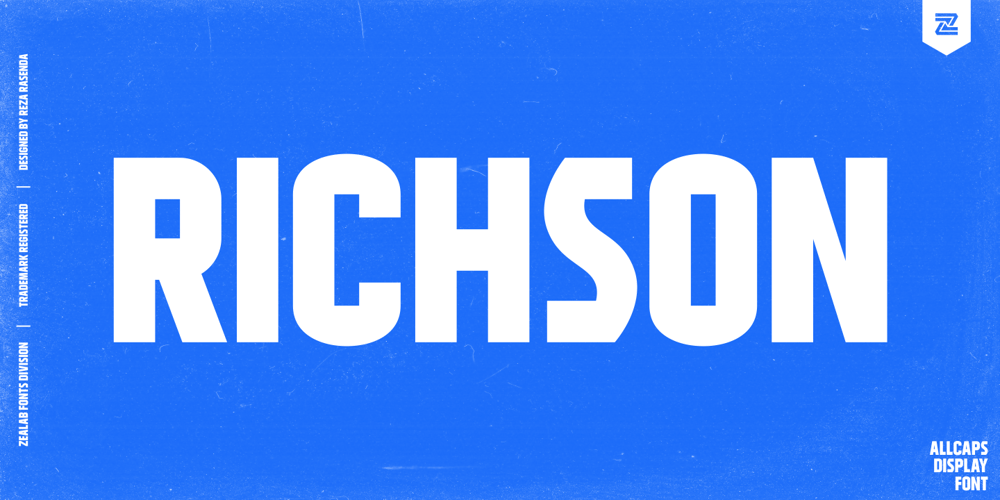
Richson Font Family was designed by Reza Rasenda and published by Zealab Fonts Division. Richson contains 1 styles and family package options. Richson is a font inspired by Pop Punk/Rock/Hardcore Music and the Skateboarding world. With Allcaps and multilingual support, Richson really fit for Band wordmark, album covers, video tittles, stickers, clothing brand name, t-shirt designs, badges designs, banners, flyers, and more. Just look how it performs on the previews, you will see its capabilities. But Richson will also work well with other themes.I can’t wait to see what you will come up with when using this font!